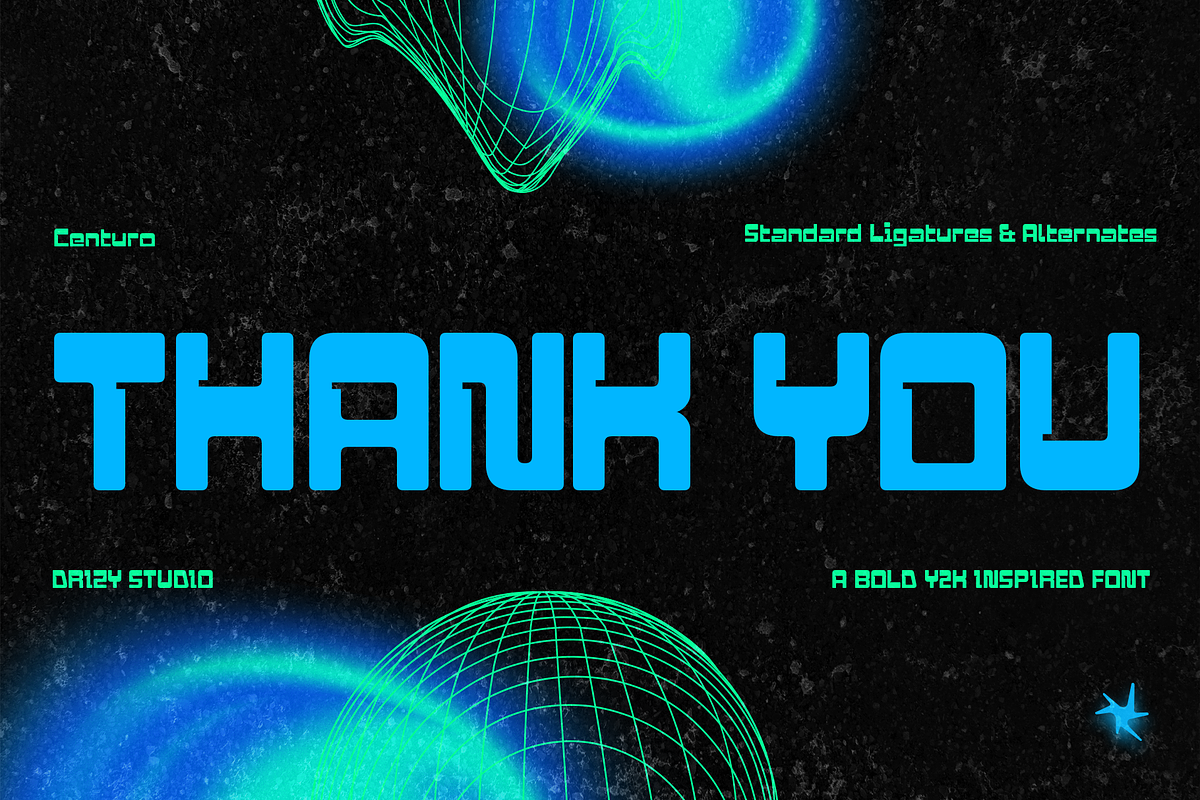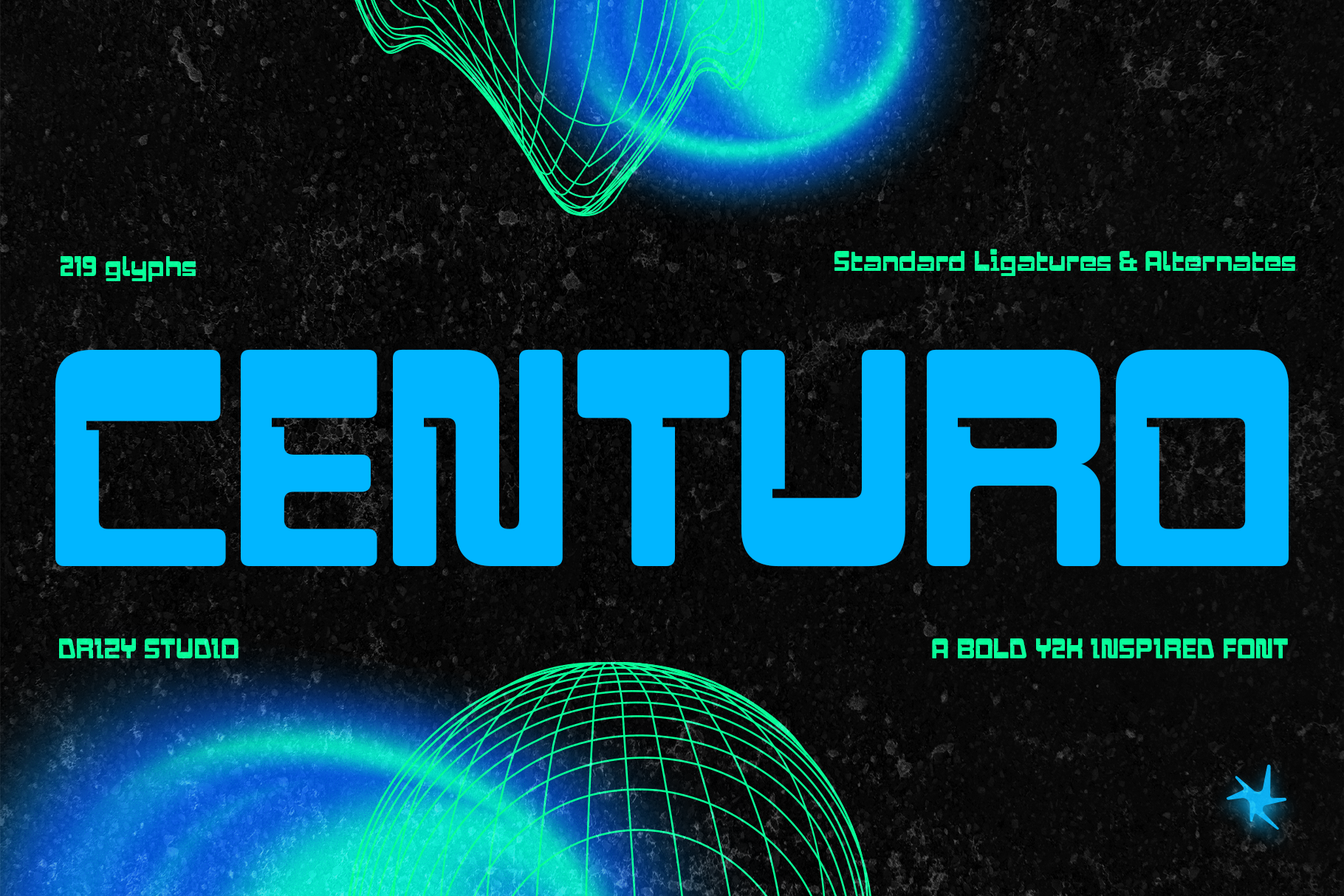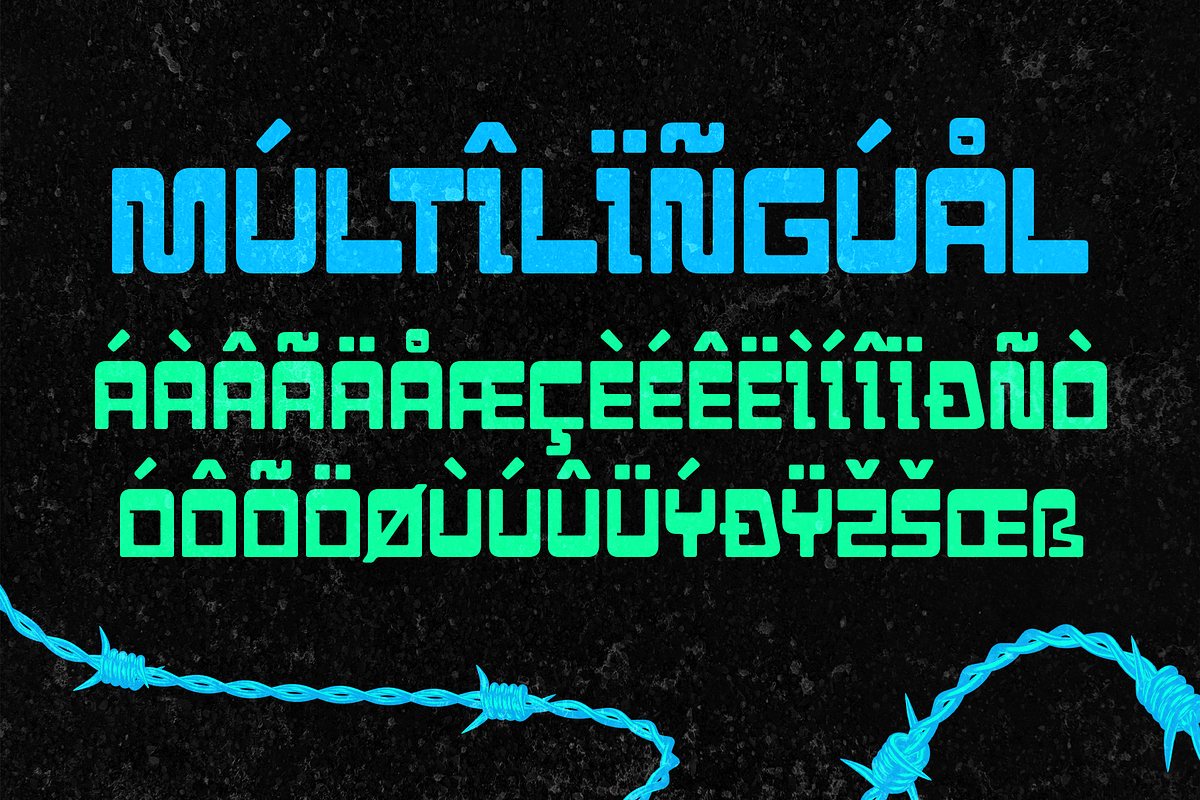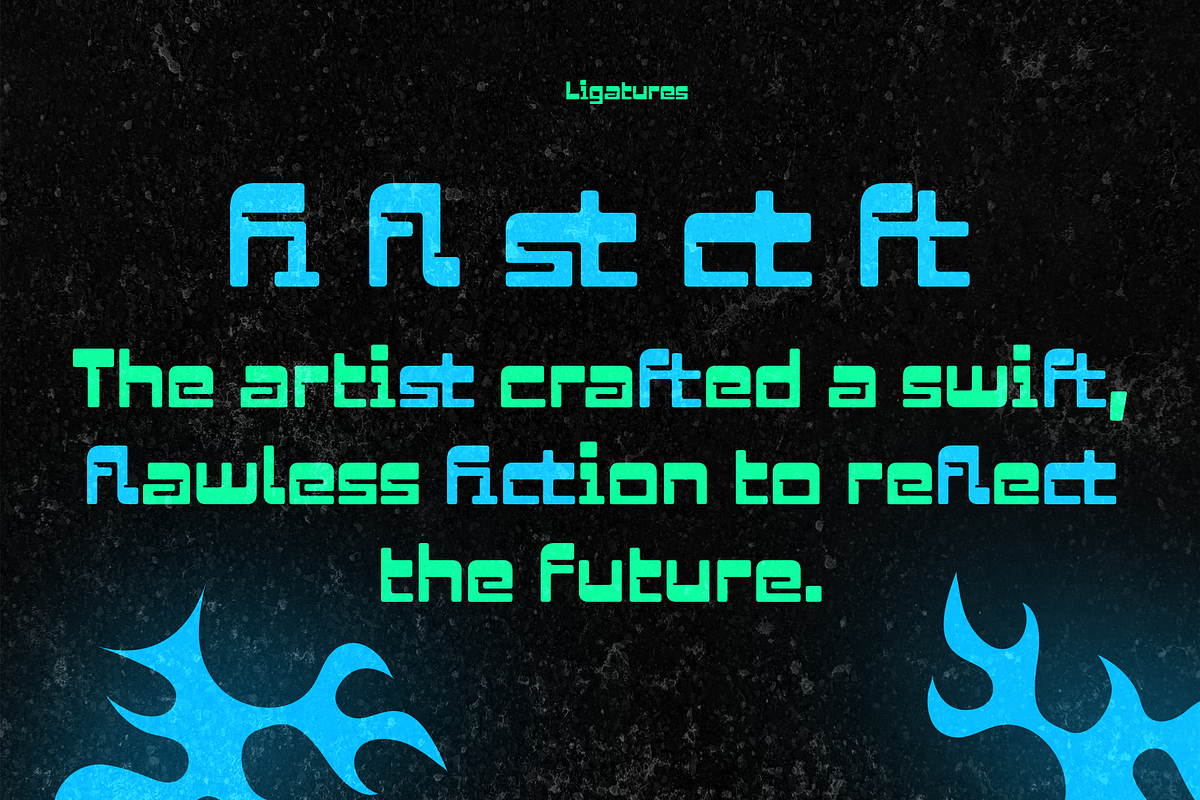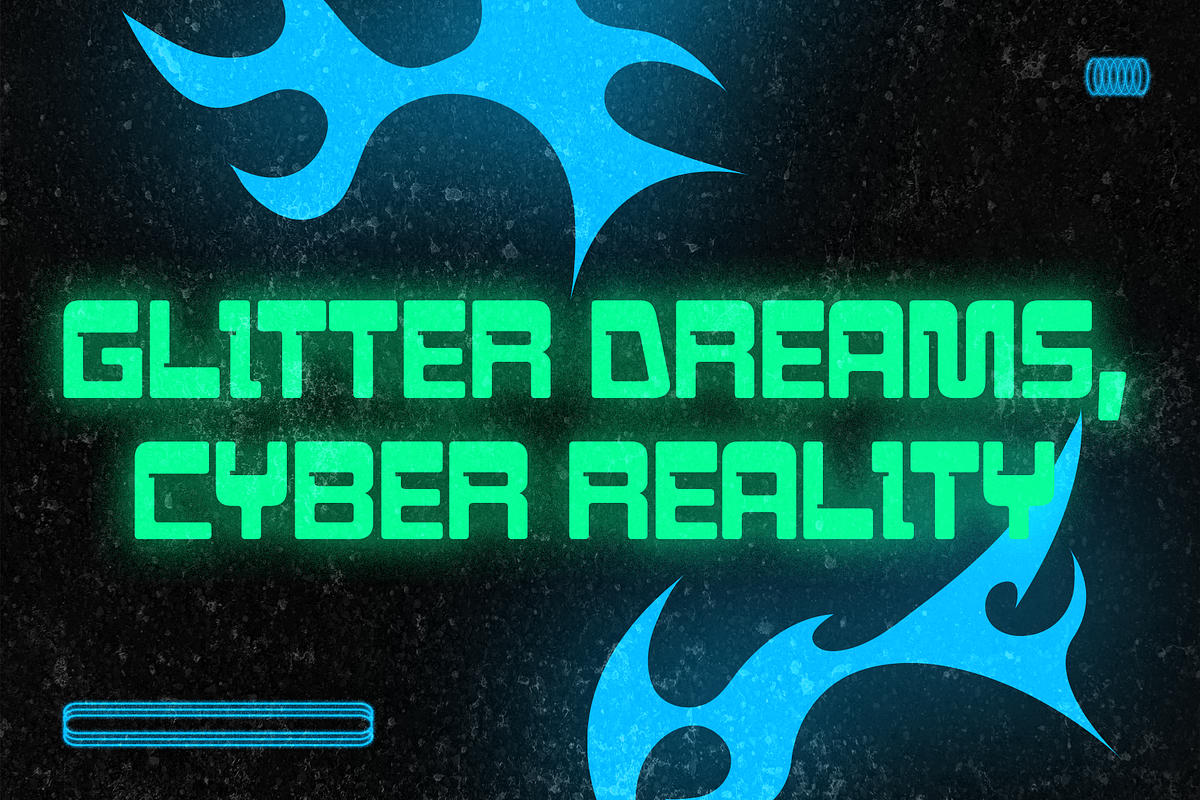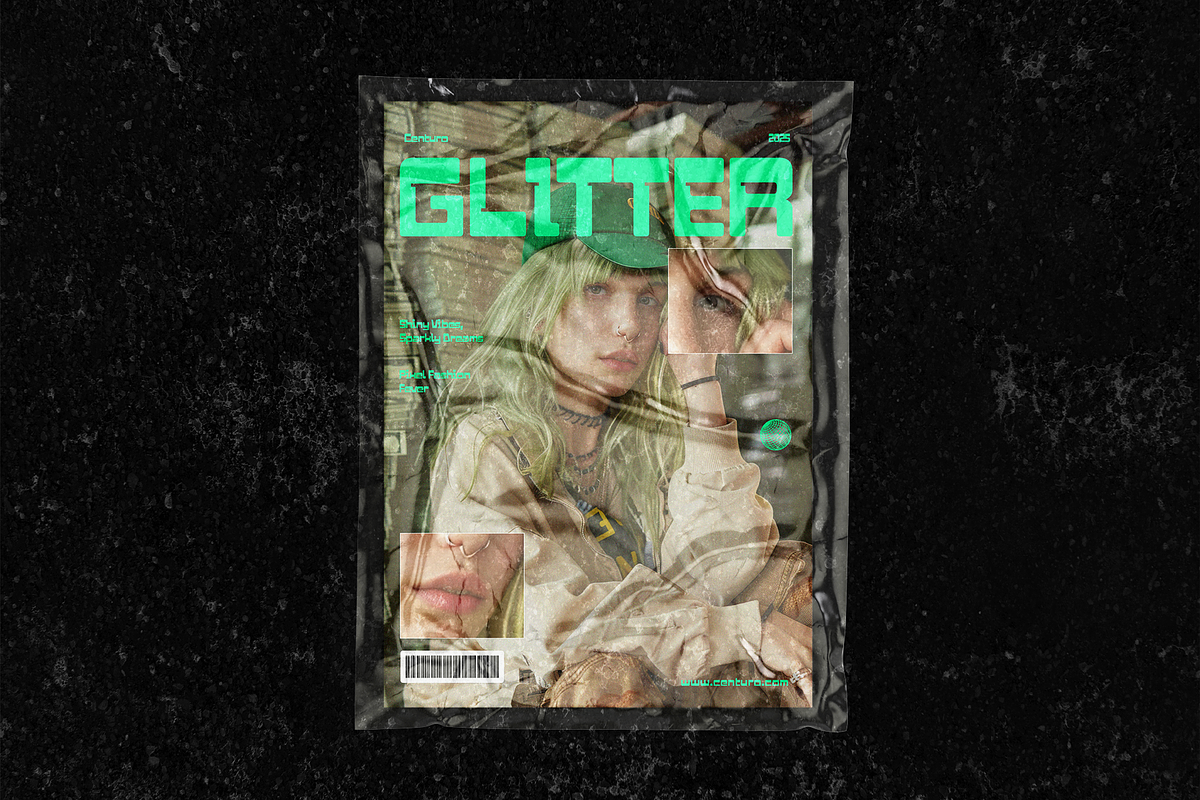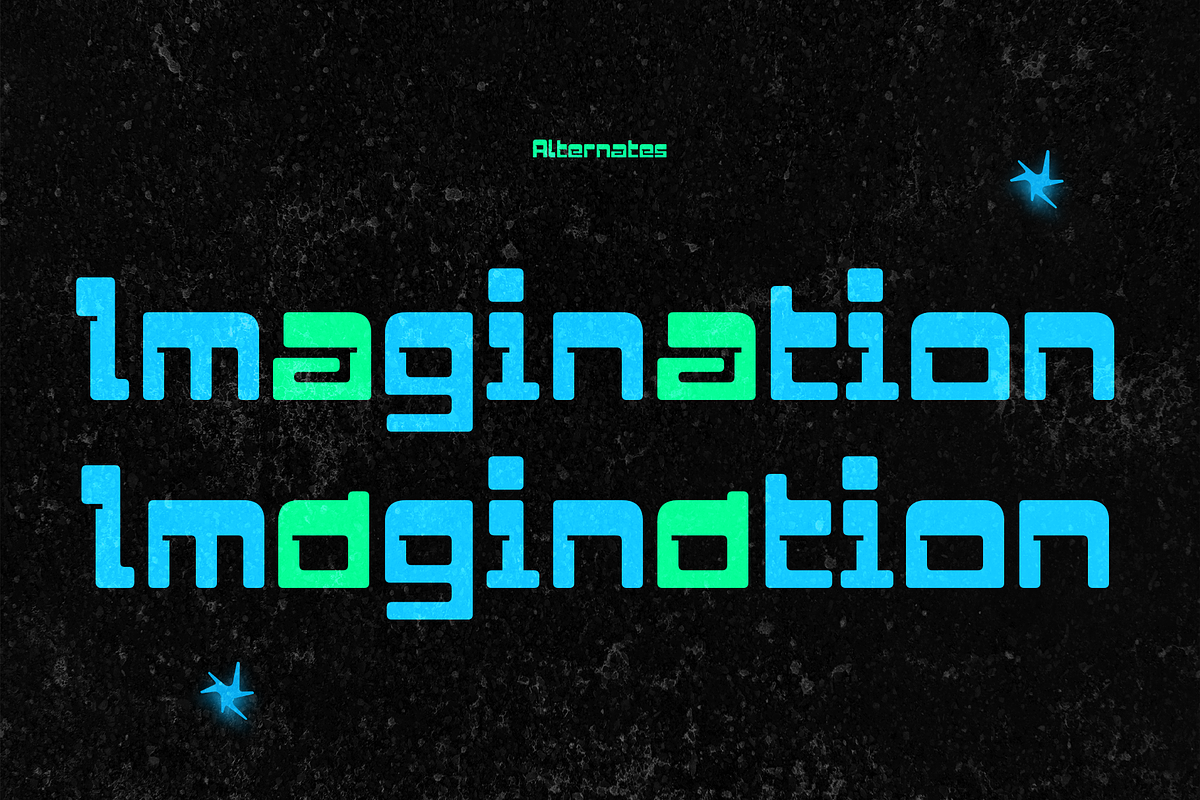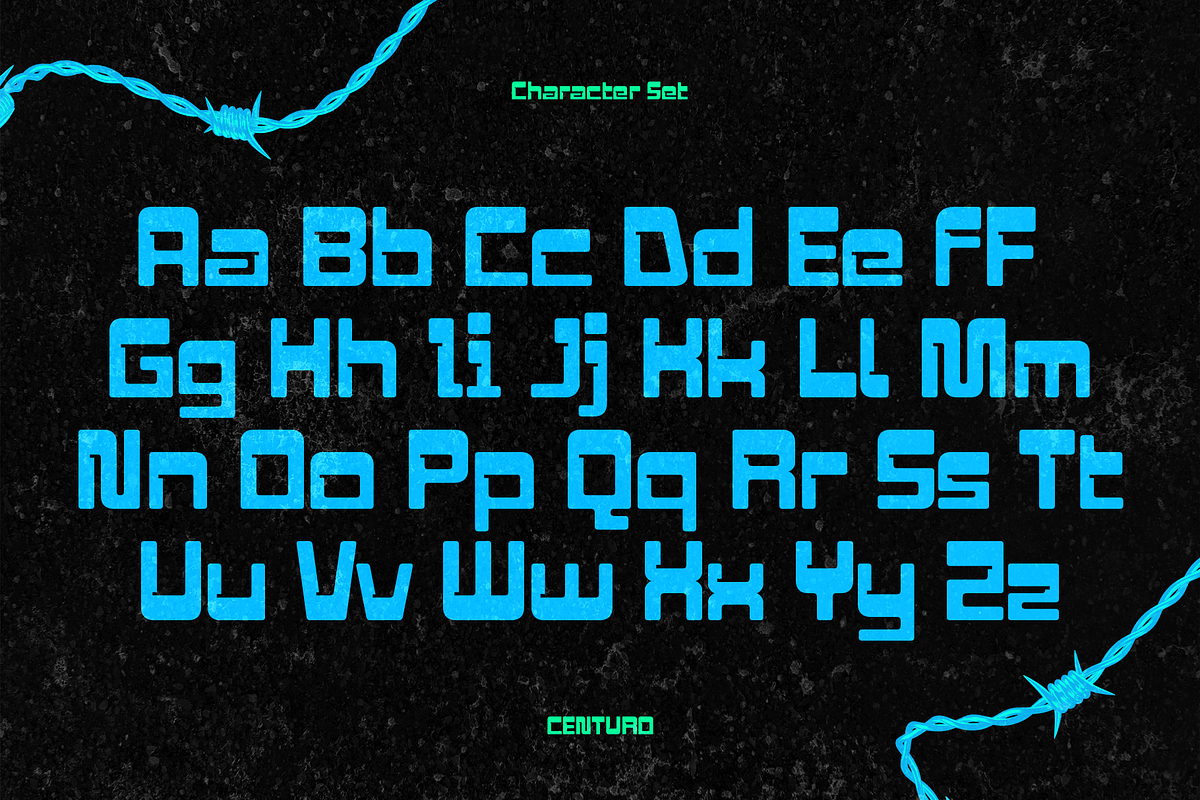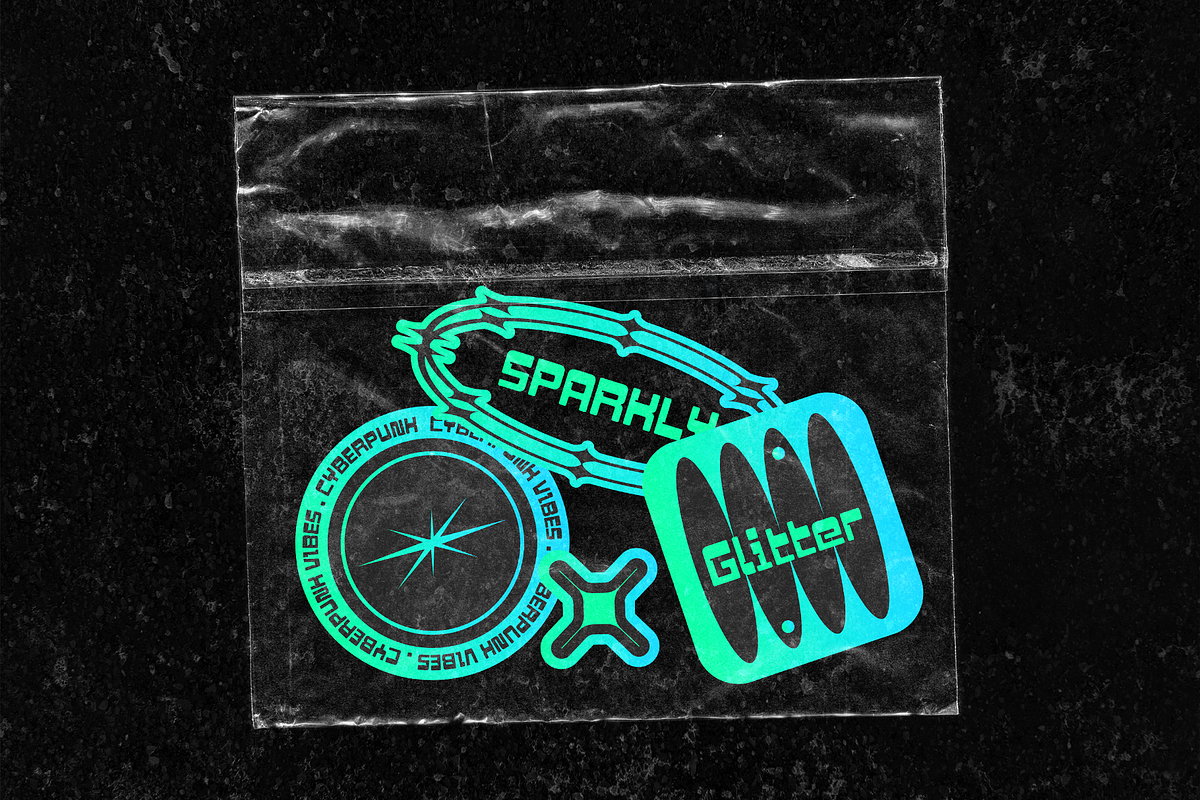
Centuro – Y2K Bold Font
Centuro is a bold and futuristic Y2K-style font that brings back the energetic vibe of the early 2000s. With chunky letterforms, smooth curves, and a tech-inspired edge, it’s perfect for designs that need a nostalgic yet modern punch.
Use Centuro for logos, posters, apparel, or digital projects that want to stand out with a confident retro-futuristic feel — bold, playful, and unmistakably Y2K.
Centuro – Y2K Bold Font features:
- Punctuation & Numbers